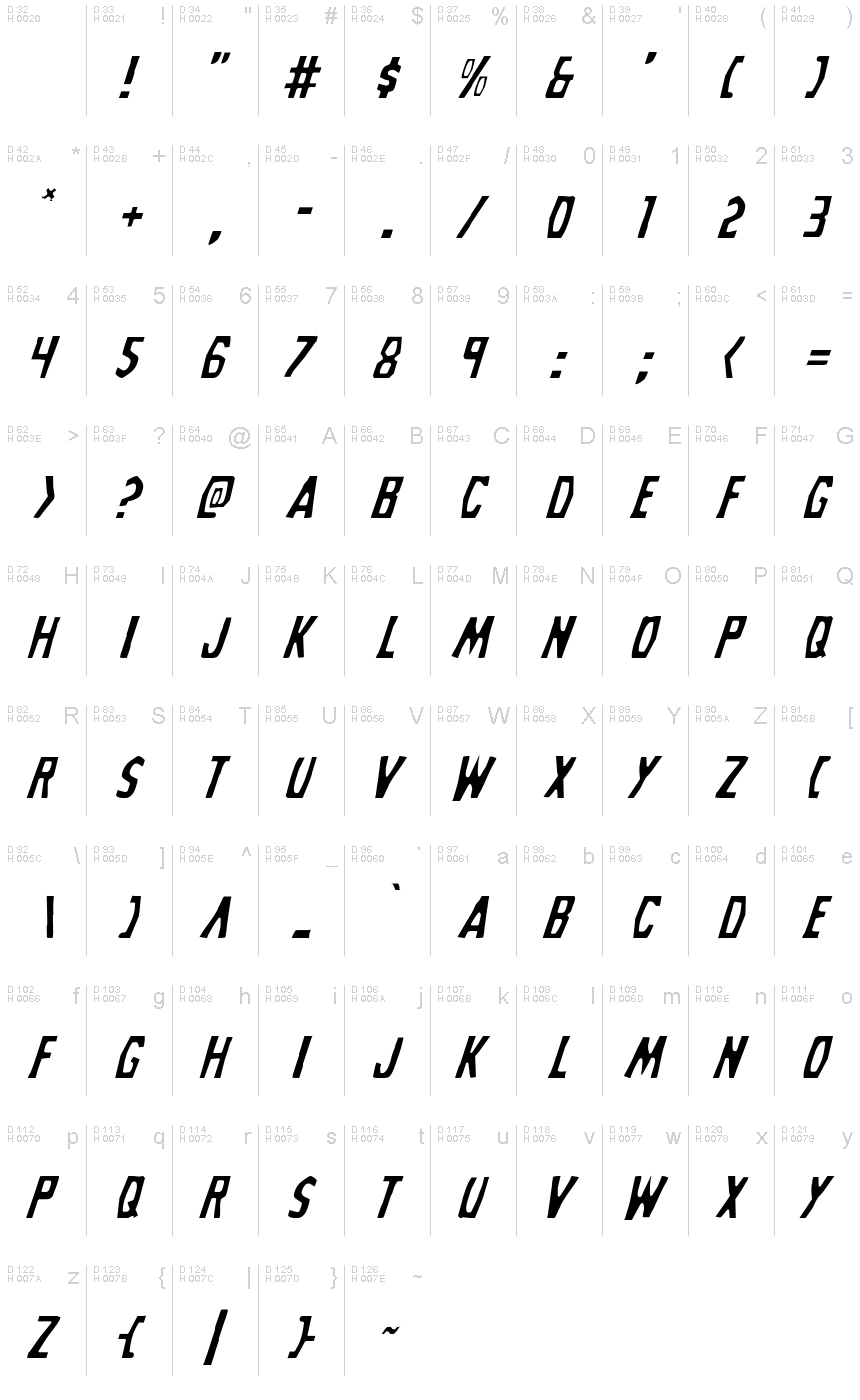
Grim Ghost Light Italic, designed in 2024 by Iconian Fonts, is a free cartoon display font with a hard-driving slant. Its tall, compressed letters have jagged joins, clipped edges, and deep angular cuts that suggest speed and impact. Uneven widths keep the line lively rather than mechanically uniform.
Posters are its most convincing medium. The sharp silhouette suits extreme-sports events, arcade game graphics, and music merchandise, where the lettering can supply a loud, restless title treatment. On packaging for action toys or novelty products, those blade-like cuts can echo lightning, speed trails, comic-book impact shapes, and angular patterns in the surrounding illustration.